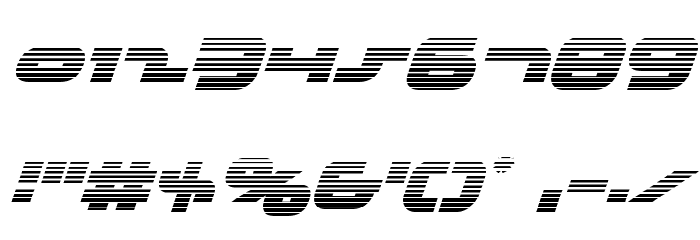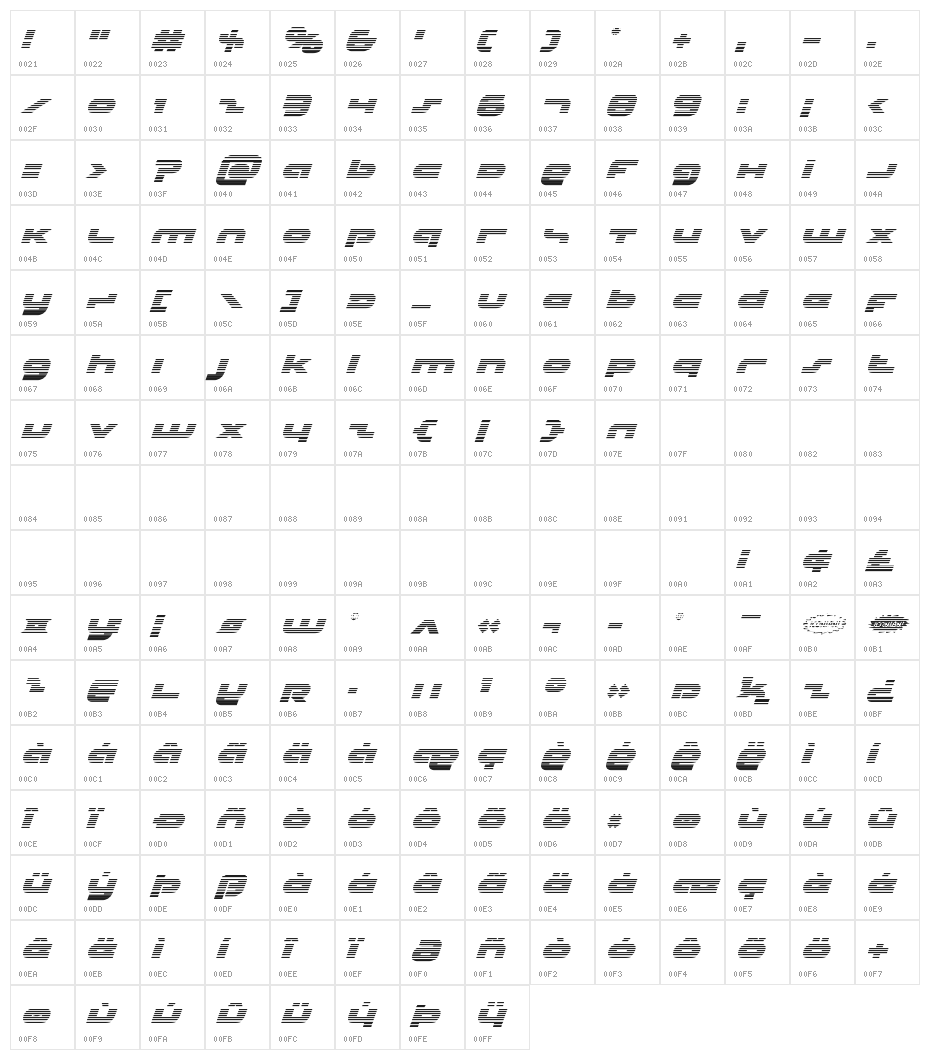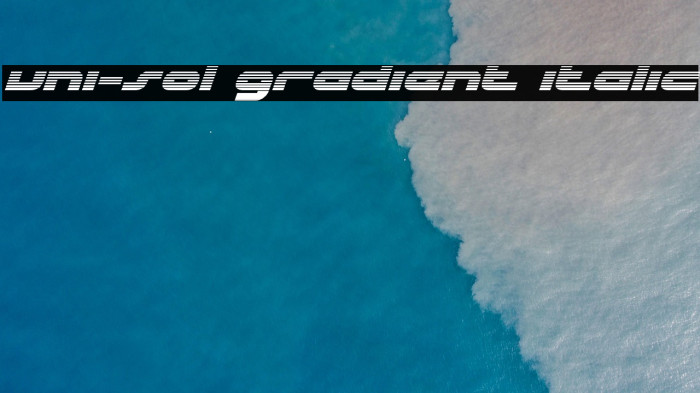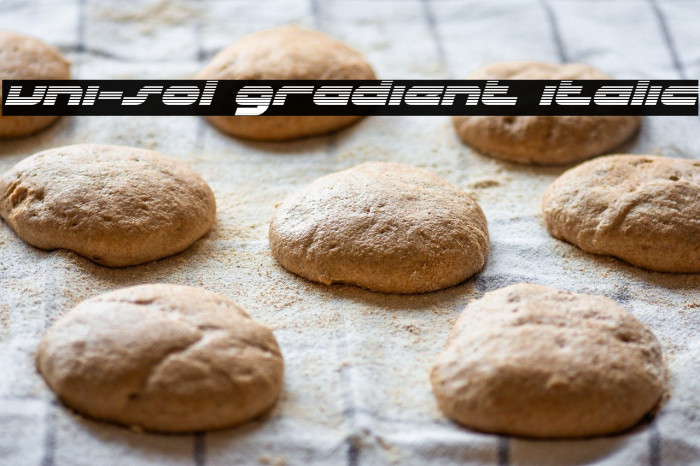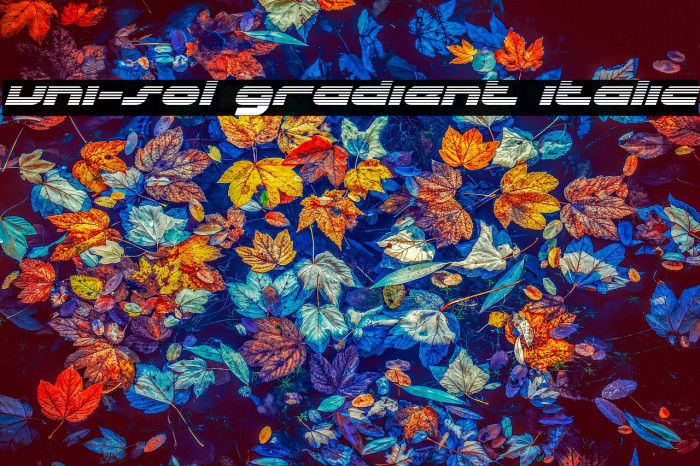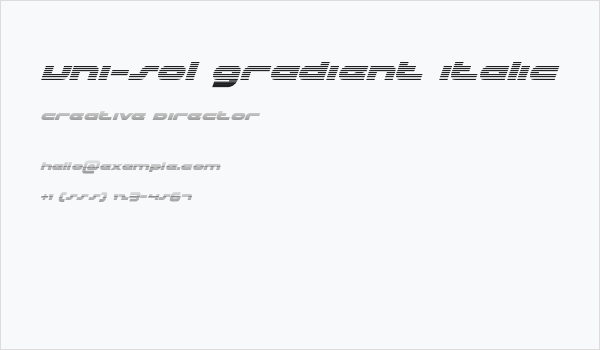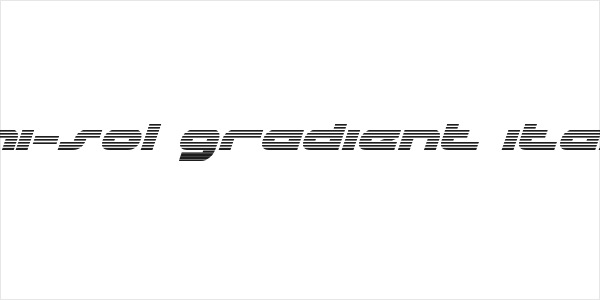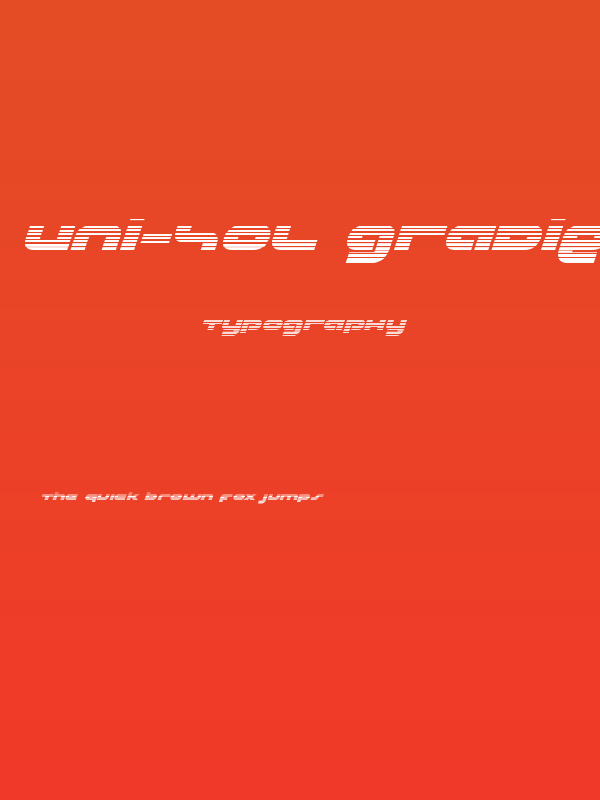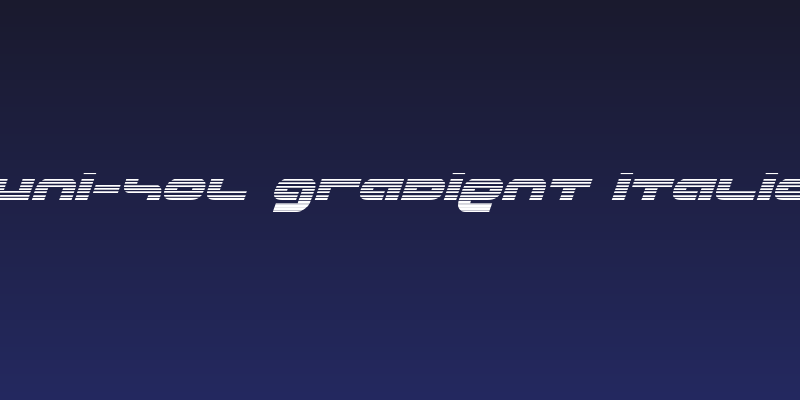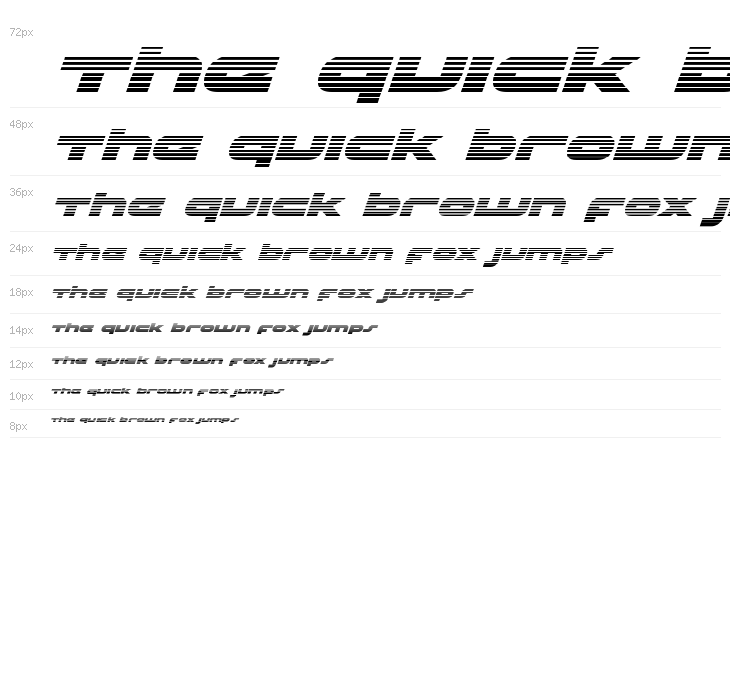
uni-sol gradient italic Font
uni-sol gradient italic Description
This font features a futuristic and dynamic design, characterized by its italicized and gradient-striped appearance. The letters are composed of horizontal lines that create a sense of movement and speed, making it ideal for modern and tech-oriented projects. The uppercase and lowercase letters maintain a consistent style, with rounded edges and a sleek, aerodynamic look. Numbers and special characters follow the same design principles, ensuring uniformity across all elements. The font's unique style is both eye-catching and versatile, suitable for a variety of creative applications.
| Proposed Projects | Ideal for tech branding, futuristic posters, video game graphics, and sci-fi themed designs. |